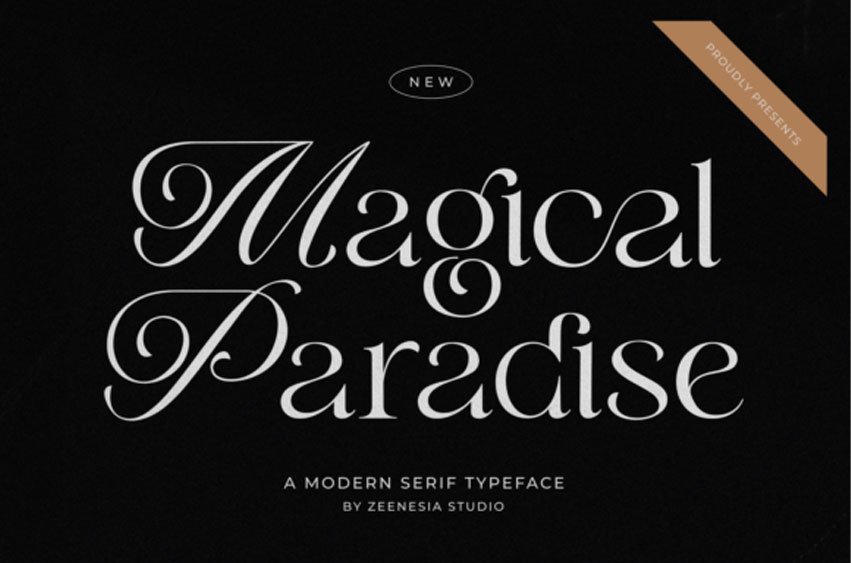
Magical Paradise Font is a modern display font combining a stylish serif with a luxurious script.
Elevate your designs with the distinguished charm of Magical Paradise, a font that radiates refined luxury.